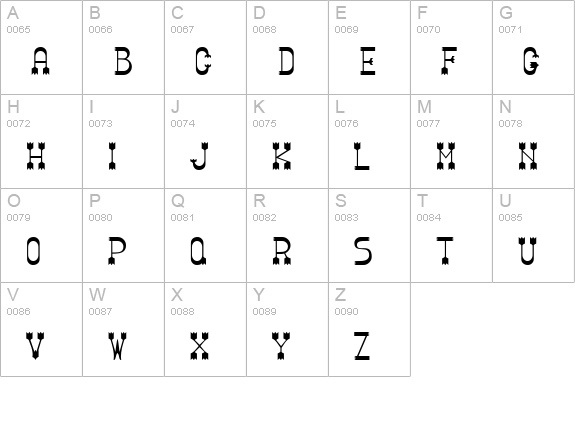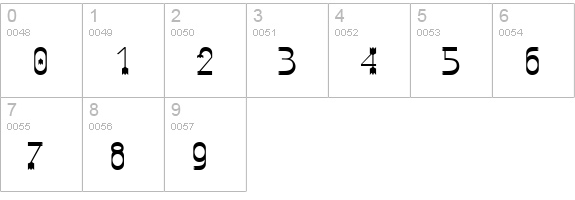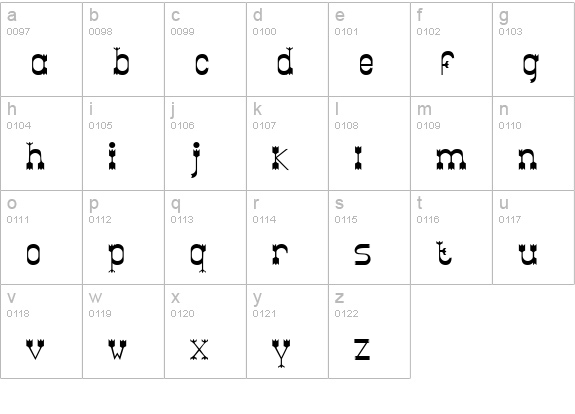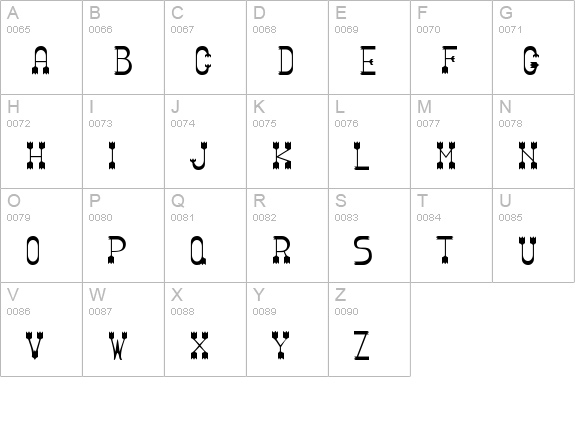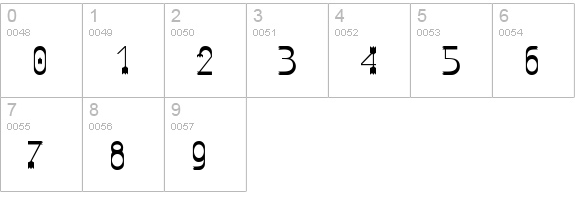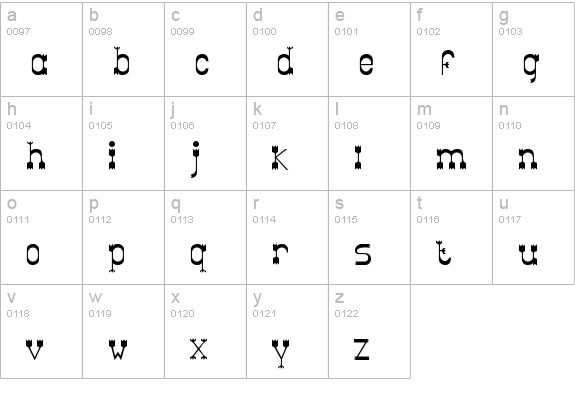
Parador Tryout Font Details
Introducing Parador Tryout, a stunning font that effortlessly combines elegance and versatility. Designed with meticulous attention to detail, this font is perfect for adding a touch of sophistication to any project. With its clean lines and balanced proportions, Parador Tryout exudes a sense of modernity and professionalism. Whether you're creating a logo, designing a website, or crafting a stylish invitation, this font will elevate your work to new heights. What sets Parador Tryout apart is its incredible versatility. It is equally at home in both formal and informal settings, adapting seamlessly to a wide range of design styles. Its graceful curves and subtle serifs add a refined touch to any text, while its bold presence commands attention. But that's not all - Parador Tryout is also available for free! Yes, you read that right. This exceptional font can be freely downloaded at FontsMarket.com, making it accessible to designers and enthusiasts alike. Now, you can effortlessly incorporate Parador Tryout into your projects without breaking the bank. So why wait? Unleash your creativity and download Parador Tryout today. With its timeless elegance and the freedom to use it without any cost, this font is a must-have for anyone looking to make a lasting impression. Transform your designs and captivate your audience with the unparalleled beauty of Parador Tryout.